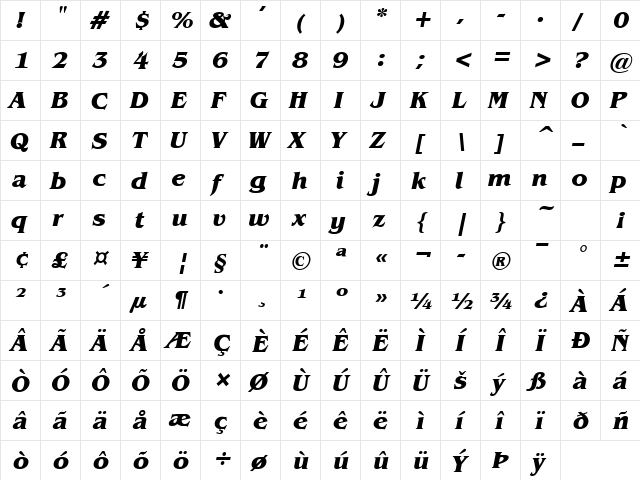
Gazette Bold Italic
Design Context for Gazette Typeface
Gazette takes a measured approach to typography — its balanced proportions and neutral character make it a reliable workhorse for both digital and print work. The slanted form adds forward momentum and visual energy. The heavy weight commands attention and anchors typographic hierarchies.
Pro Tip: Use Gazette for emphasis, pull quotes, and subheadings where its slanted energy can add rhythm to the layout.